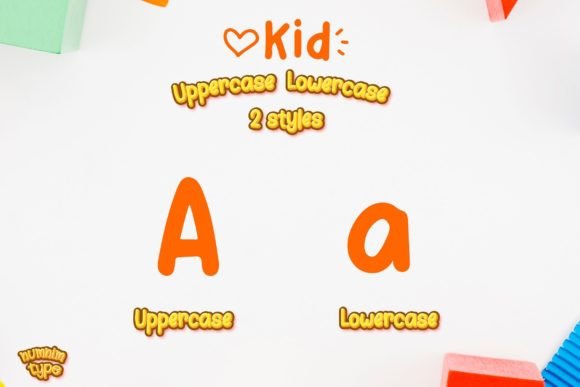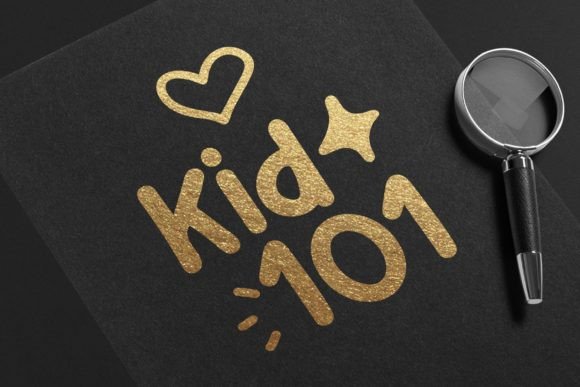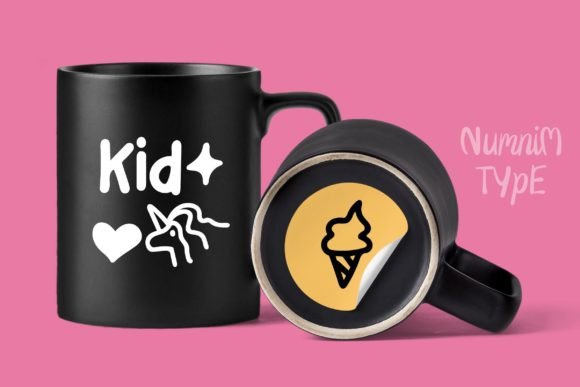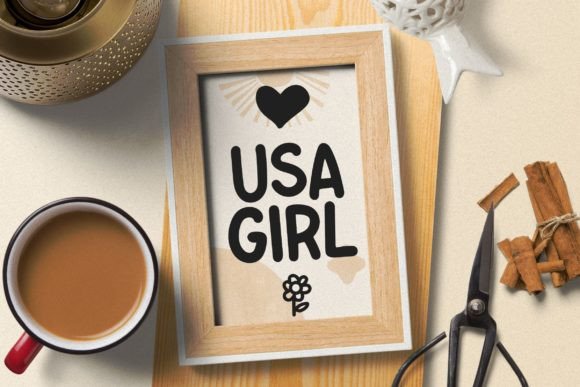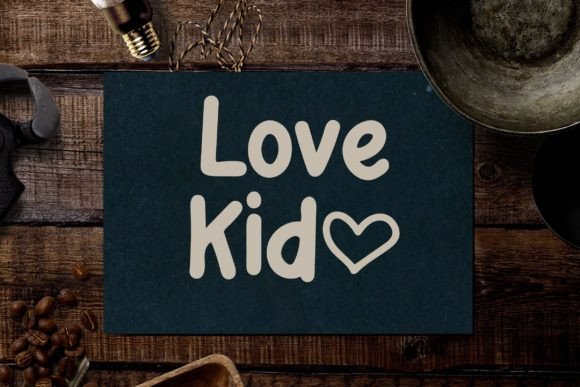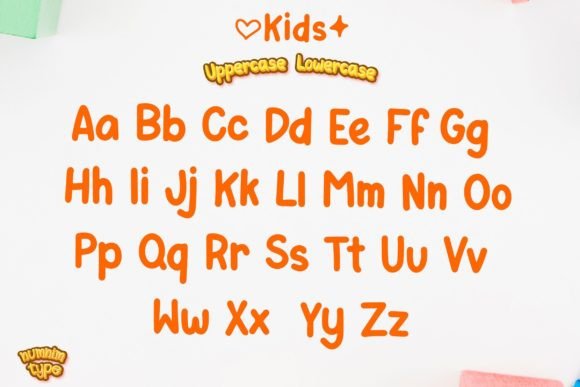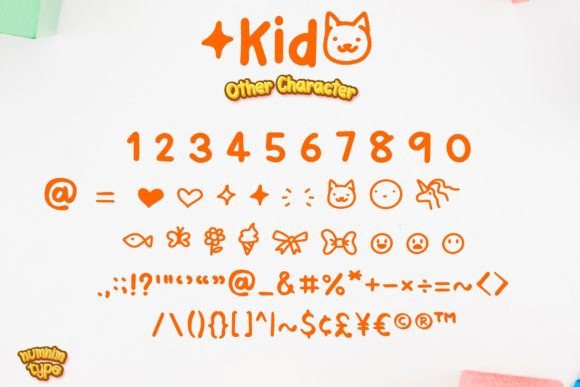
Kid Font
About Kid Font
“Kid” is a font that captures the essence of cuteness and creativity, designed in a colorful handwritten style that radiates playfulness and authenticity. Its chunky letterforms evoke a sense of childlike innocence and joy, making it an ideal choice for children’s activities, school projects, and any design aimed at young audiences. By incorporating “Kid” into your designs, you can infuse them with a vibrant and lively energy, ensuring they come alive with youthful enthusiasm.
**Cute and Colorful Design**: The cute and colorful design of “Kid” makes it visually appealing and delightful. Its playful letterforms and vibrant colors create a cheerful atmosphere, perfect for children-oriented projects. The font’s lively appearance captures the imagination and curiosity of young minds.
**Authenticity and Playfulness**: “Kid” embodies authenticity and playfulness, reflecting the spontaneity and creativity of children. Its handwritten style adds a touch of genuine charm, creating a connection with the audience. The font’s playful demeanor encourages creativity and exploration.
**Perfect for Children’s Projects**: “Kid” is the perfect choice for any children’s activity, educational materials, storybooks, posters, or school projects. Its chunky lettering adds a sense of approachability and readability, ensuring that young readers can engage with the content easily. The font’s friendly appearance makes learning and exploration a joyful experience.
**Easy Access to Glyphs and Ligatures**: Being PUA encoded, “Kid” provides easy access to a variety of amazing glyphs and ligatures. This feature enhances the font’s customization options, allowing designers to experiment with different letter combinations and decorative elements. The font’s versatility encourages creative freedom.
In summary, “Kid” is a font that celebrates the spirit of childhood with its cute, colorful, and playful design. Its authenticity and approachability make it an excellent choice for children’s projects, capturing the hearts of young audiences. By incorporating “Kid” into your designs, you can create a vibrant and engaging visual experience, ensuring that your projects resonate with the curiosity and wonder of children. Let “Kid” be the playful companion that adds a touch of joy and creativity to each of your designs, making them truly captivating and memorable.